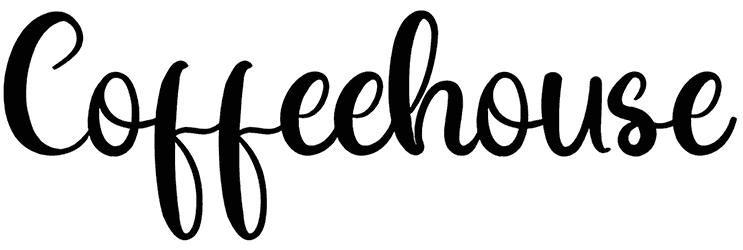
Coffeehouse Font
We have just added an awesome script font, such as Coffeehouse, to our archive that comes with elongated and tilted characters, so grabbing the audience’s attention is like a piece of cake.
This lovely coffee font can be your faithful assistant in designing brilliant blog posts, gift cards, product packaging, billboards, or applications. If creating a feeling of tenderness, vivacity, whimsical, or viability really matters to you, this artwork would be insanely ideal for your professional needs.